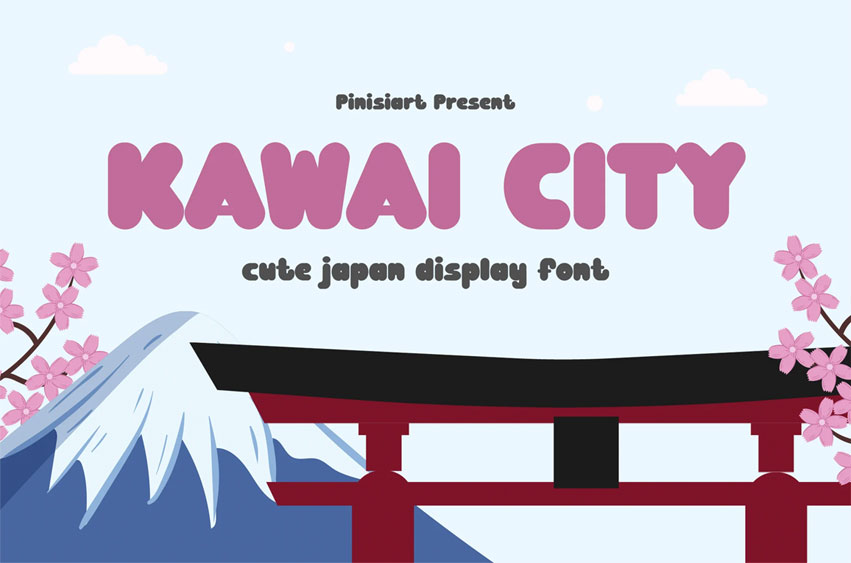
Kawai City Font
Kawai City Font Cute Japan Display Font. Asia never disappoint you with its heritage and cuteness. And KAWAI CITY will emphasize the cuteness of it.
Suit perfectly for asian kids themes books market, online games, stationary, school supplies font, poster, birthday invitation, youtube covers, youtube thumbnails, social media page covers and so on…